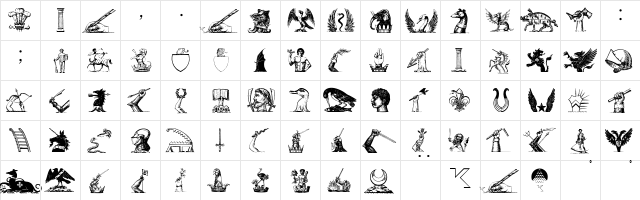
HeraldryPartsOne Regular Font Preview
HeraldryPartsOne Regular
Design Context for HeraldryPartsOne Typeface
HeraldryPartsOne is a composed and adaptable typeface that performs quietly and consistently across a wide range of design contexts.